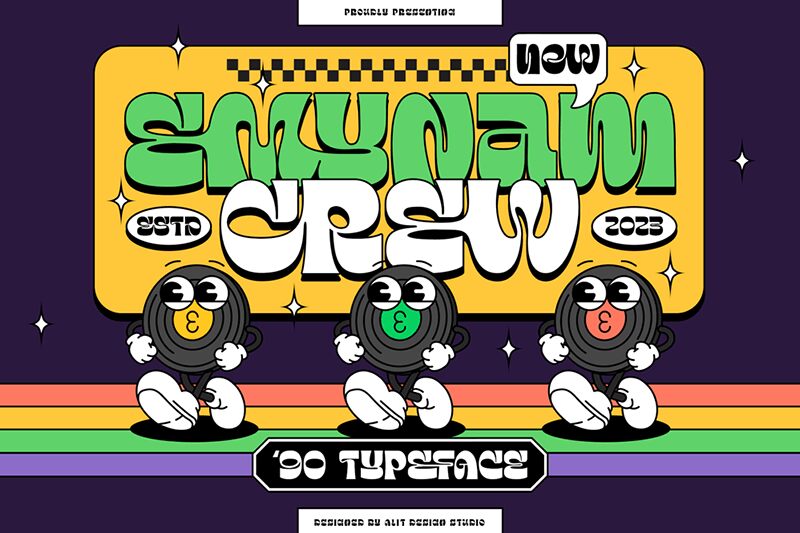
Emynam Crew Regular
Emynam Crew font by Alit Design is a free display font with groovy, artistic touches. A true showstopper, the font features expanded letters presented with abstract elements with modernist vibes. Emynam Crew boasts smooth curves and flowing shapes like it’s always in motion presenting a naturally eye-catching yet vibrant display.
Ad it to poster headlines, sticker designs, branding projects, logos and logotypes, book covers and magazines layouts. It will also look great on apparel items like t-shirts and hoodies but also product packaging among others.